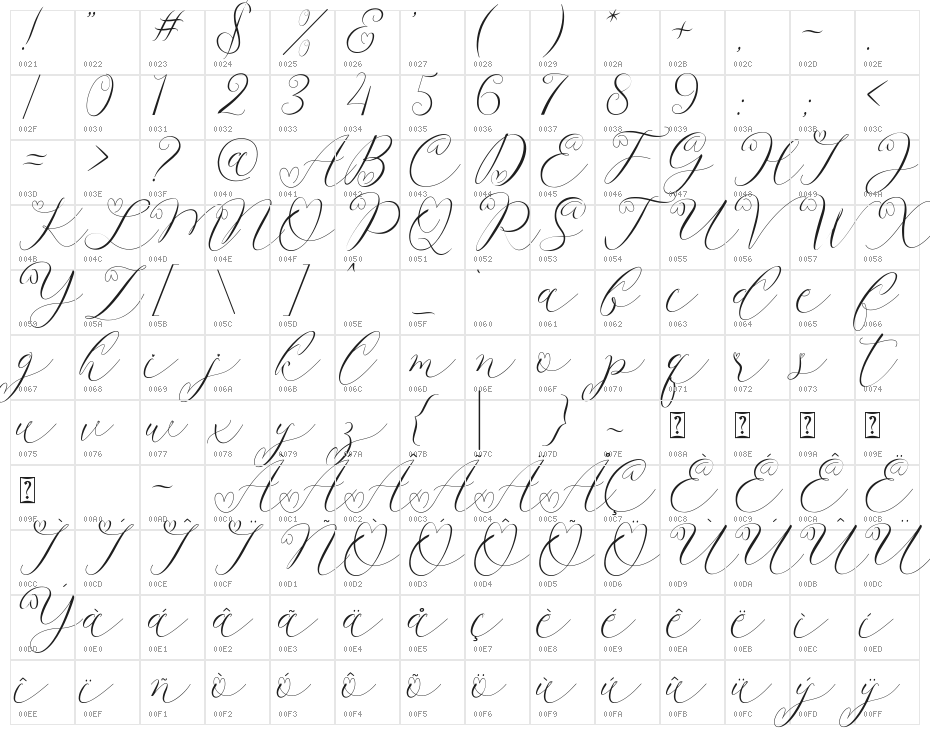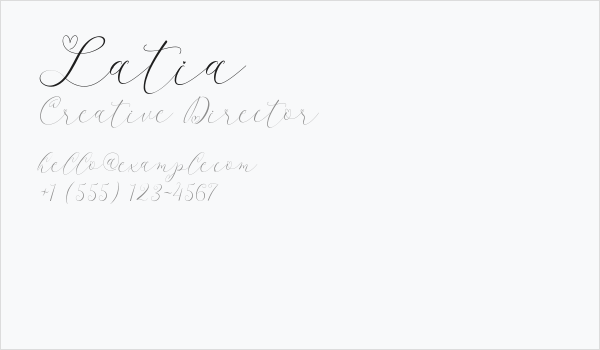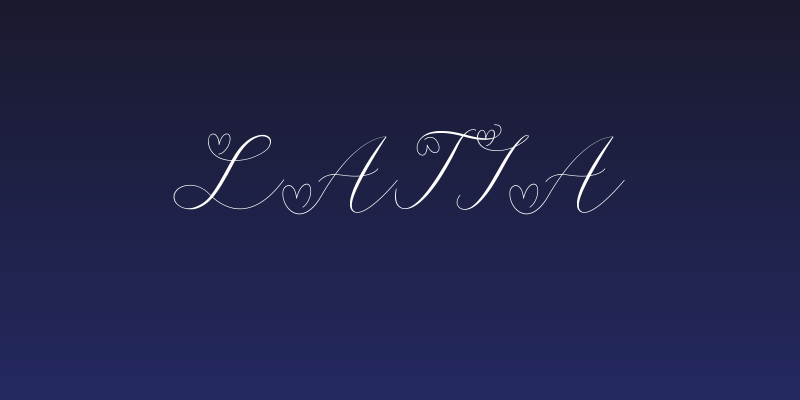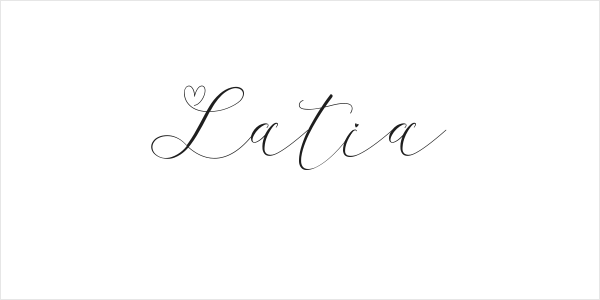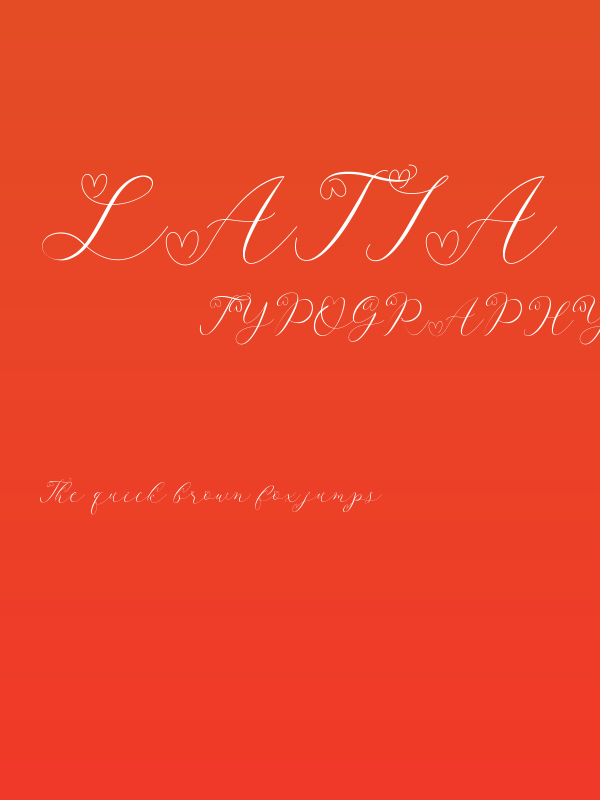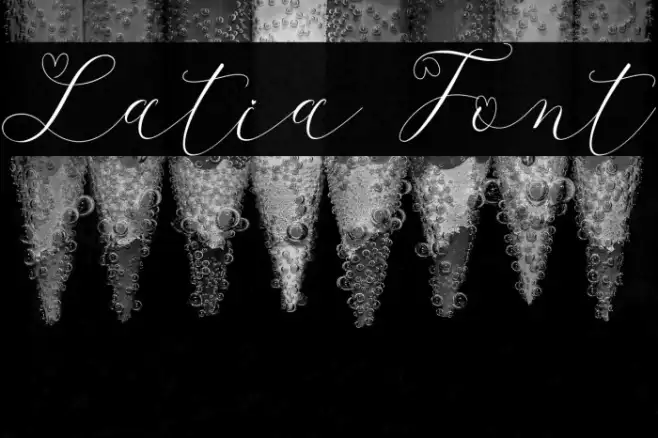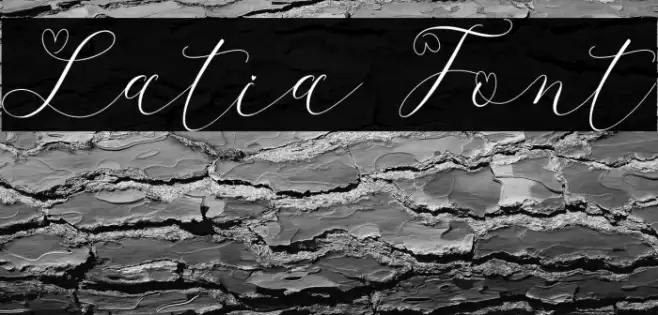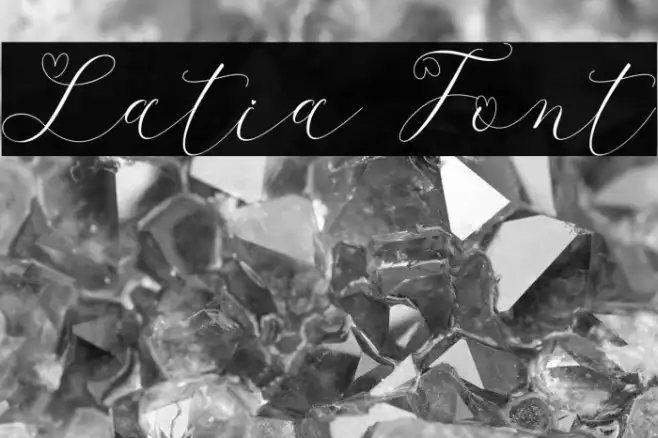
Latia Font
Latia Description
This elegant script font features graceful, flowing lines with a delicate and sophisticated appearance. Each character is adorned with subtle flourishes, adding a touch of romance and charm. The uppercase letters are particularly ornate, with intricate loops and swirls that create a sense of movement and fluidity. The lowercase letters maintain a consistent style, offering a harmonious blend of curves and angles. Numbers and special characters are designed with the same attention to detail, ensuring a cohesive look across all elements. The overall aesthetic is both classic and modern, making it versatile for various design applications.